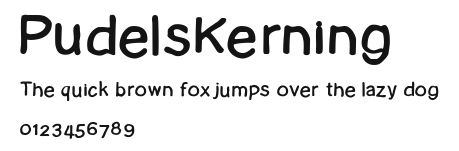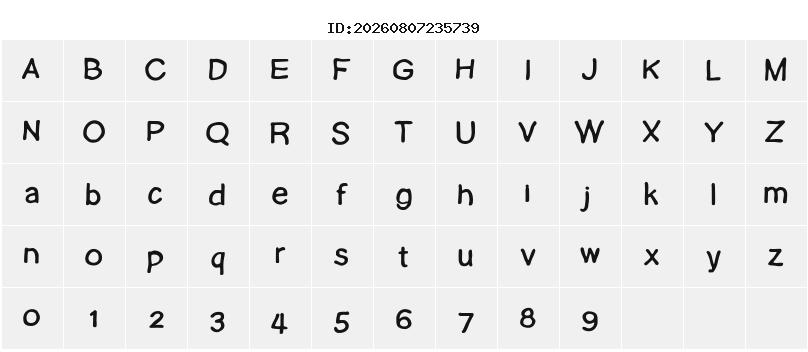
• Font Name: PudelsKerning
About PudelsKerning.ttf
PudelsKerning.ttf is a modern, elegant sans-serif font designed for ultimate readability and visual harmony. Perfect for branding, headlines, web design, and print materials.